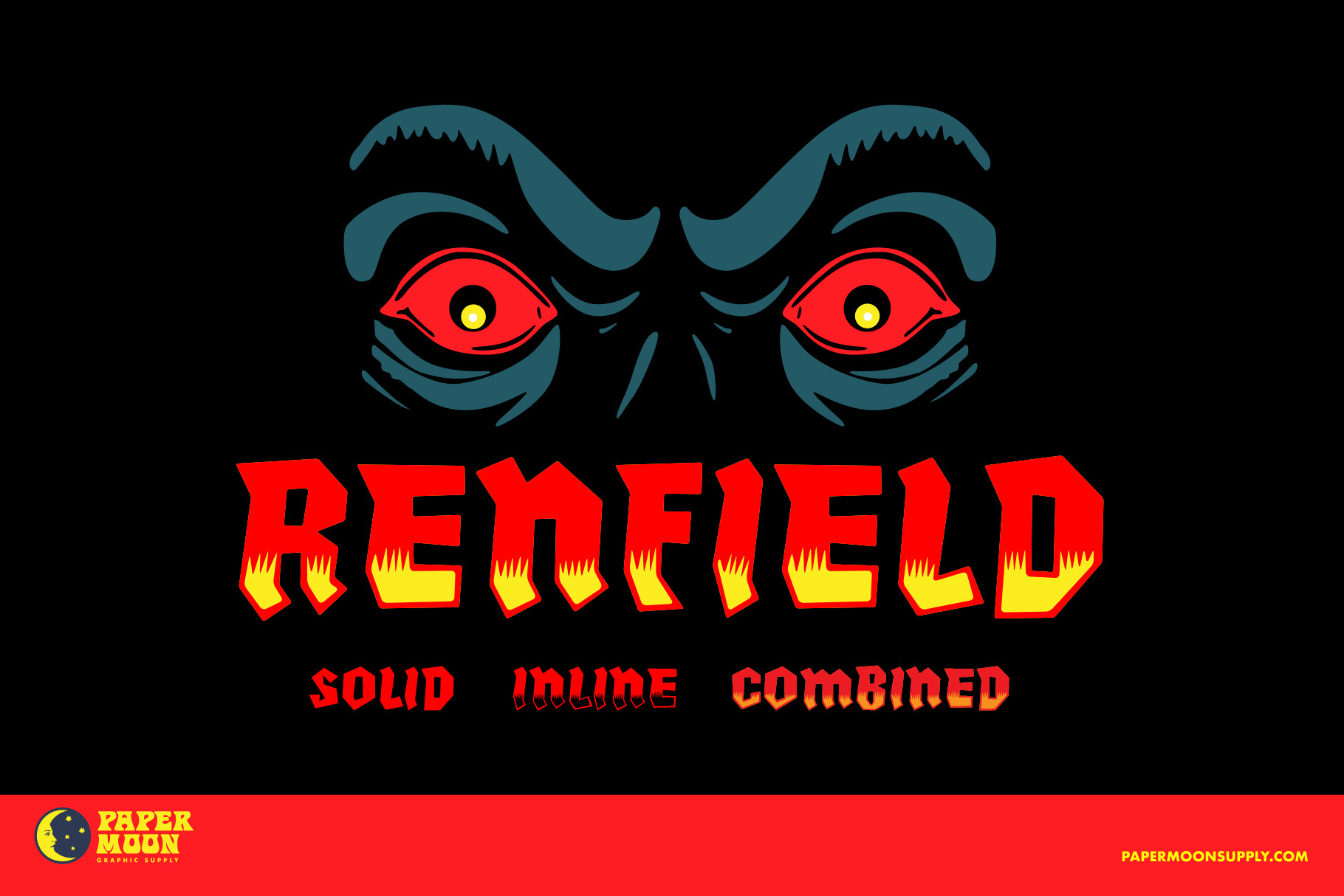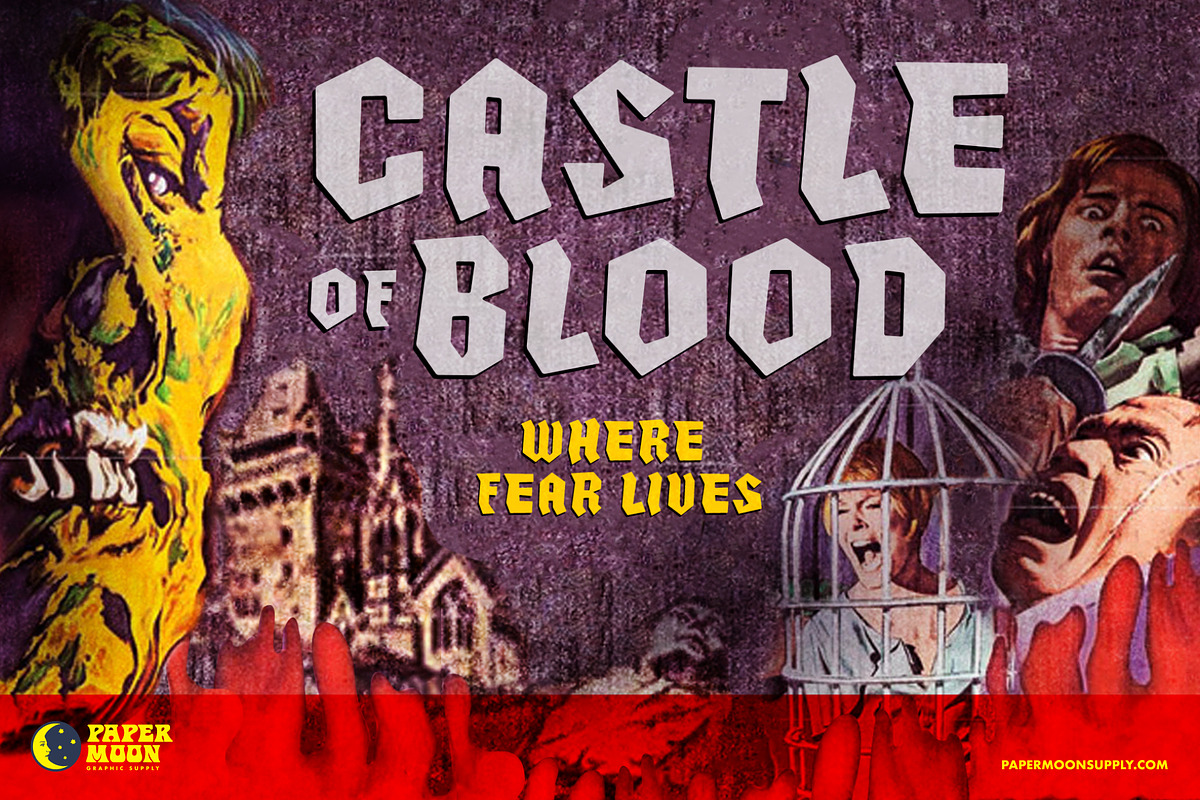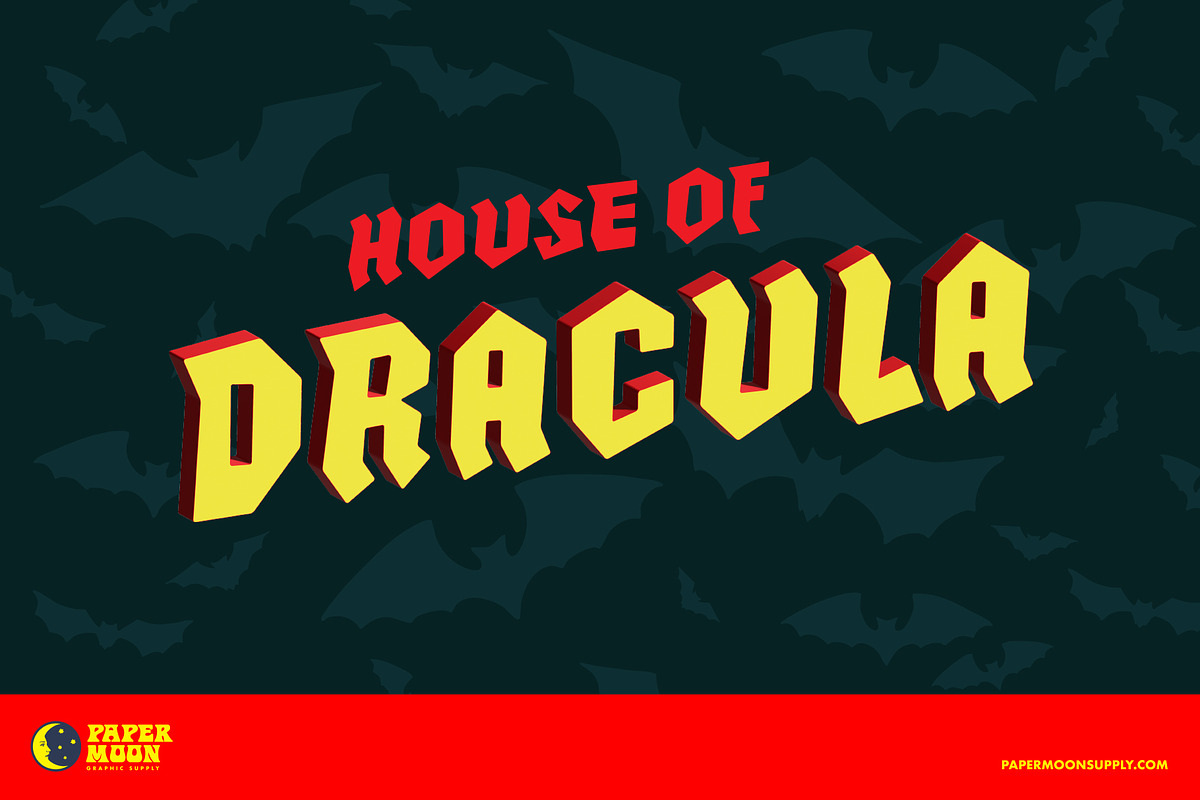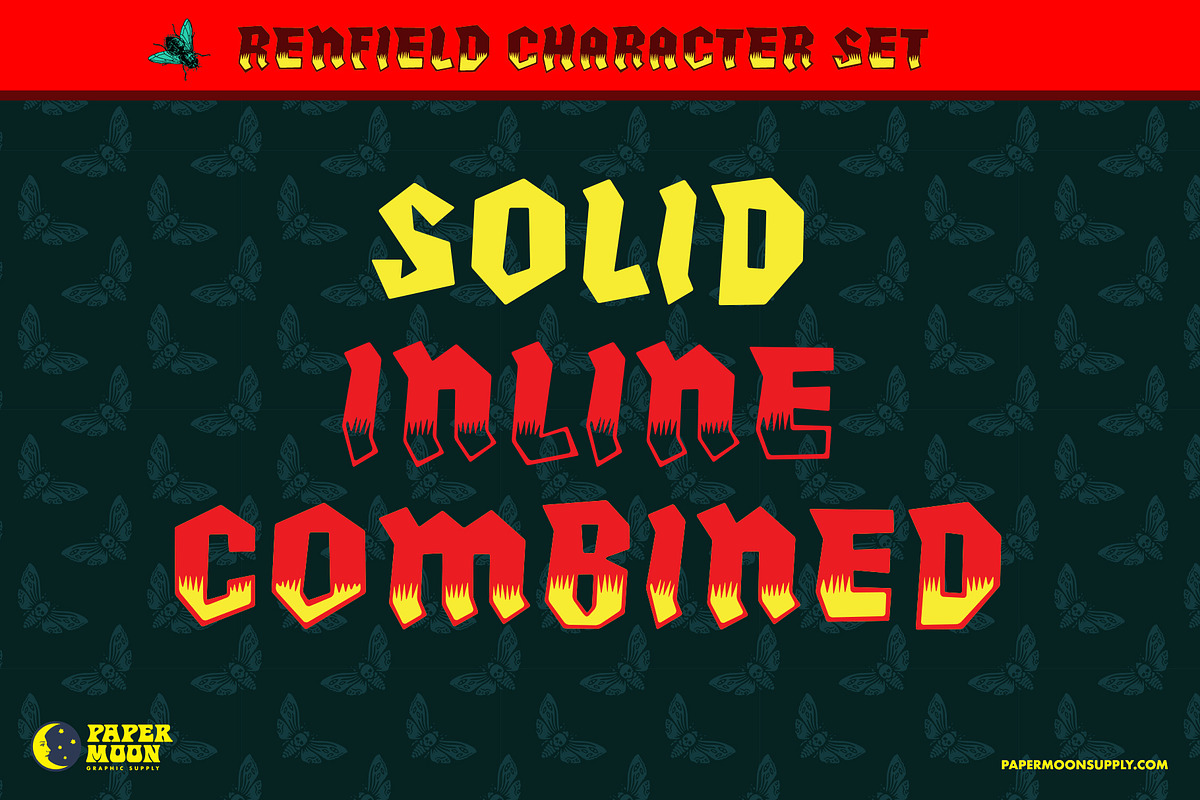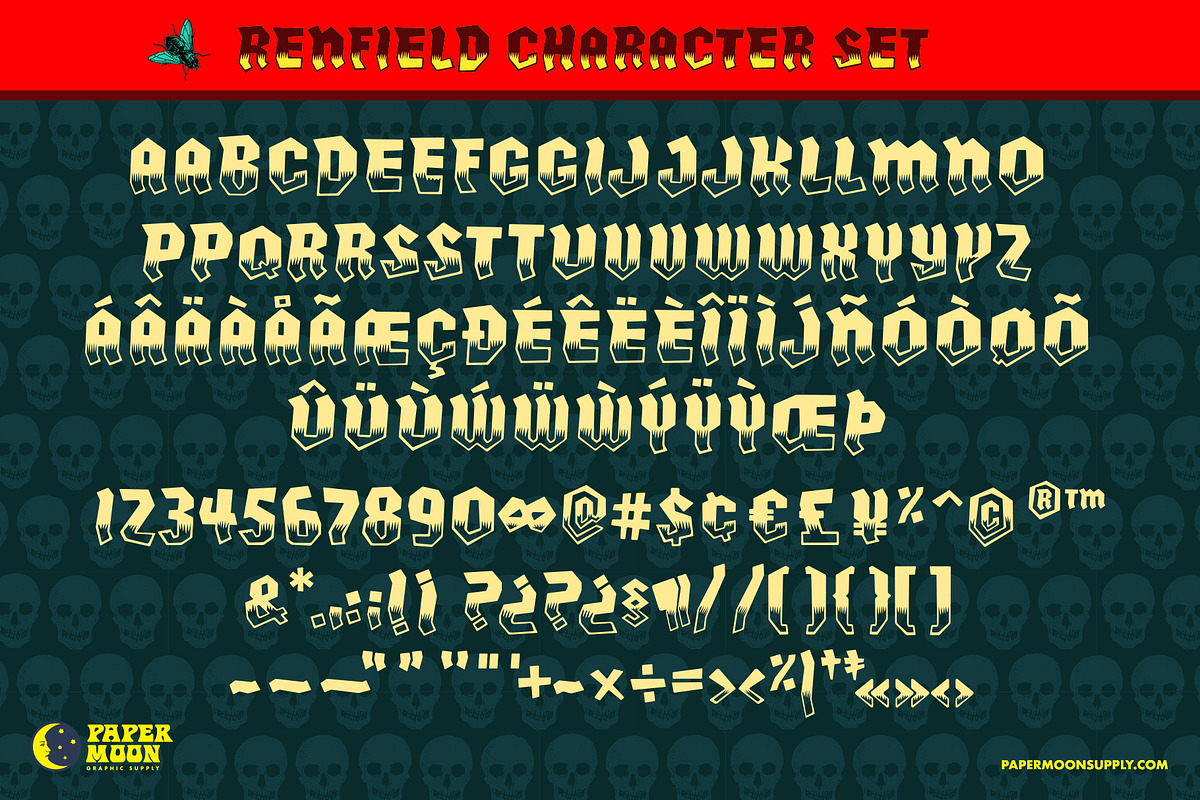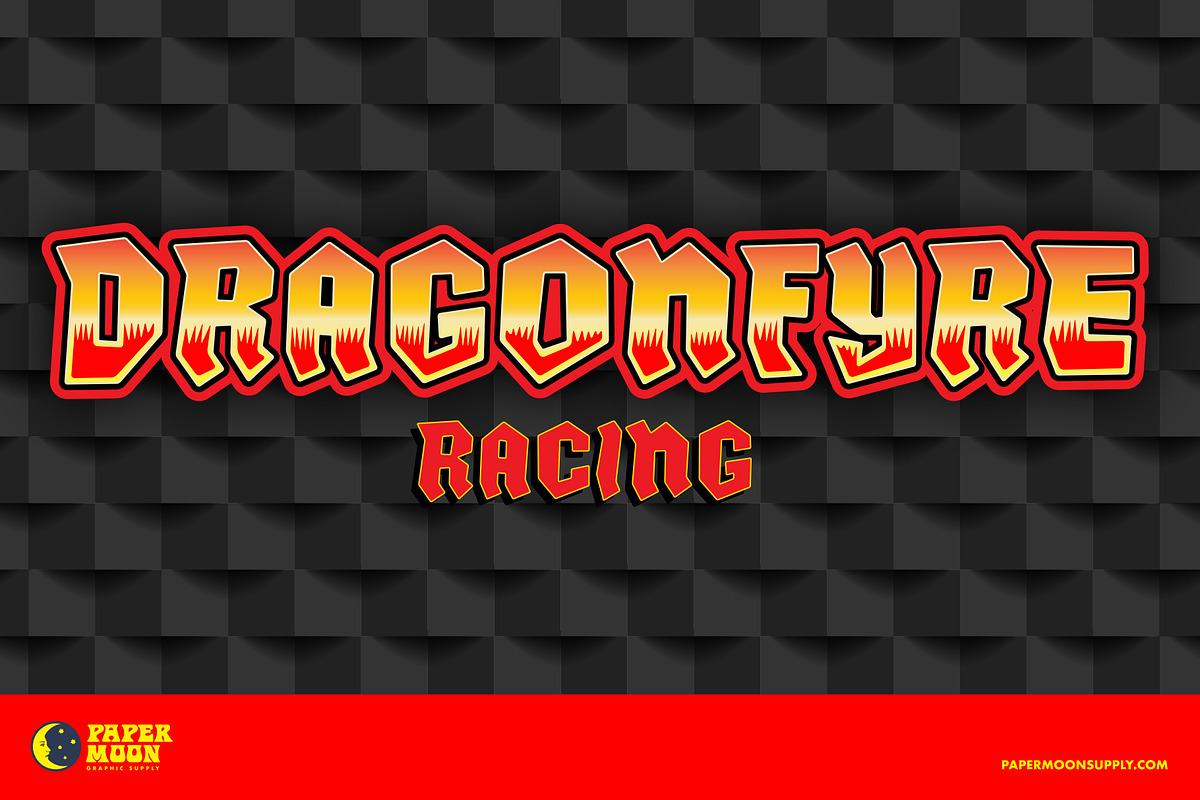
Renfield Vintage Font
A new font inspired by vintage late-night horror movie posters.
No vampire castle is complete without Renfield, Dracula's most devoted familiar. Use it for Halloween posters, flyers, and ads or anything that need a classic gothic atmosphere.
Includes both inline and solid version. Truetype & OpenType.